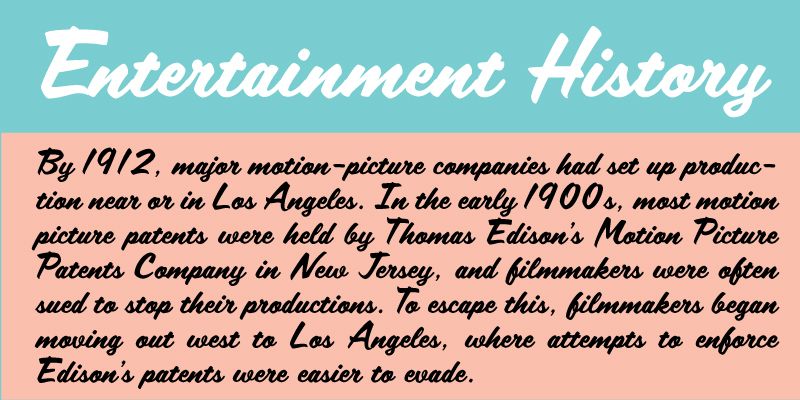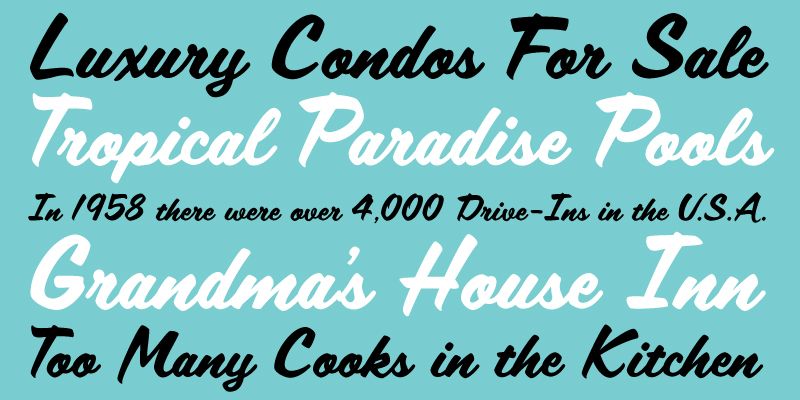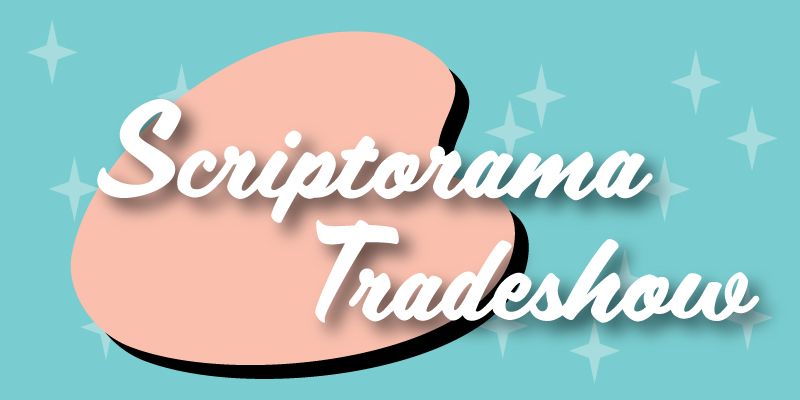
Scriptorama Tradeshow is a flowing brush script font that lends a warm and engaging look to any design. This Jukebox original celebrates the sign lettering of the 1950s and 1960s.
Jukebox is the brainchild of Jason Walcott, longtime type designer. Jason designed his first typeface called “Holiday Times” in the fall of 2000, and that started a long and wonderful journey that lead to the Jukebox of today.
After designing five or six more fonts, Jason started selling his typefaces on MyFonts.com in summer of 2001. At that time, his foundry went under the name of “JAW Fonts”. Several of his type designs quickly became popular on MyFonts.com and the sales grew through late 2002.
In early March of 2003, Walcott received a phone call from the then up-and-coming Veer Inc. Veer was interested in carrying his font library which then consisted of about 50 faces. The deal with Veer blossomed into a whole new venture and JAW Fonts was closed down, retooled and relaunched as Jukebox in June of 2003. The exclusive product of Veer from 2003 to 2015, Jukebox became one of the industry standards in type libraries available. Jukebox fonts have been used on countless products and designs, films, books, television productions and more, by companies such as Disney, HGTV, The Food Network, Disney Theme Parks, Hershey’s, VistaPrint and many others. In 2011 Jason’s Eloquent font family was awarded a spot in the “Best of Typeface Design” in Communications Arts Magazine’s Typography Annual.
On March 31st of 2016, Veer closed its doors forever and curation of the Jukebox library returned to Jason, who is committed to making sure Jukebox will continue to provide the design world with high-quality, professional type.